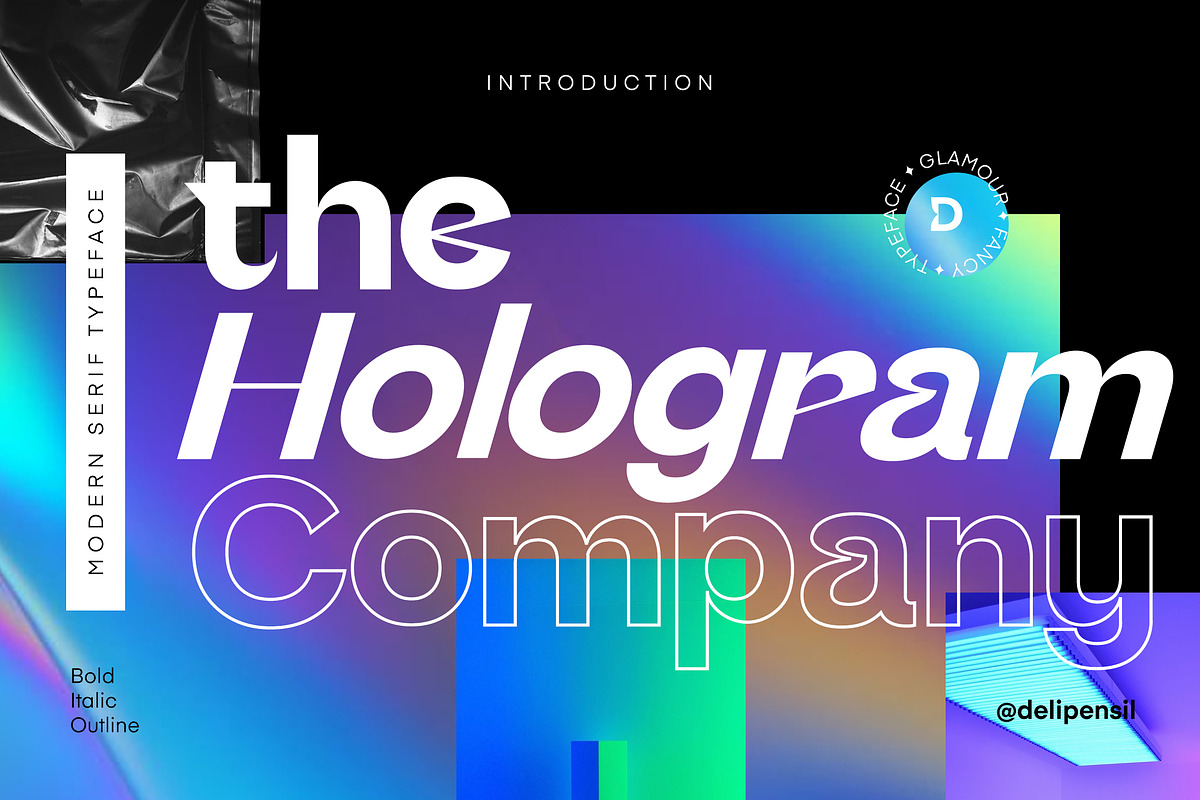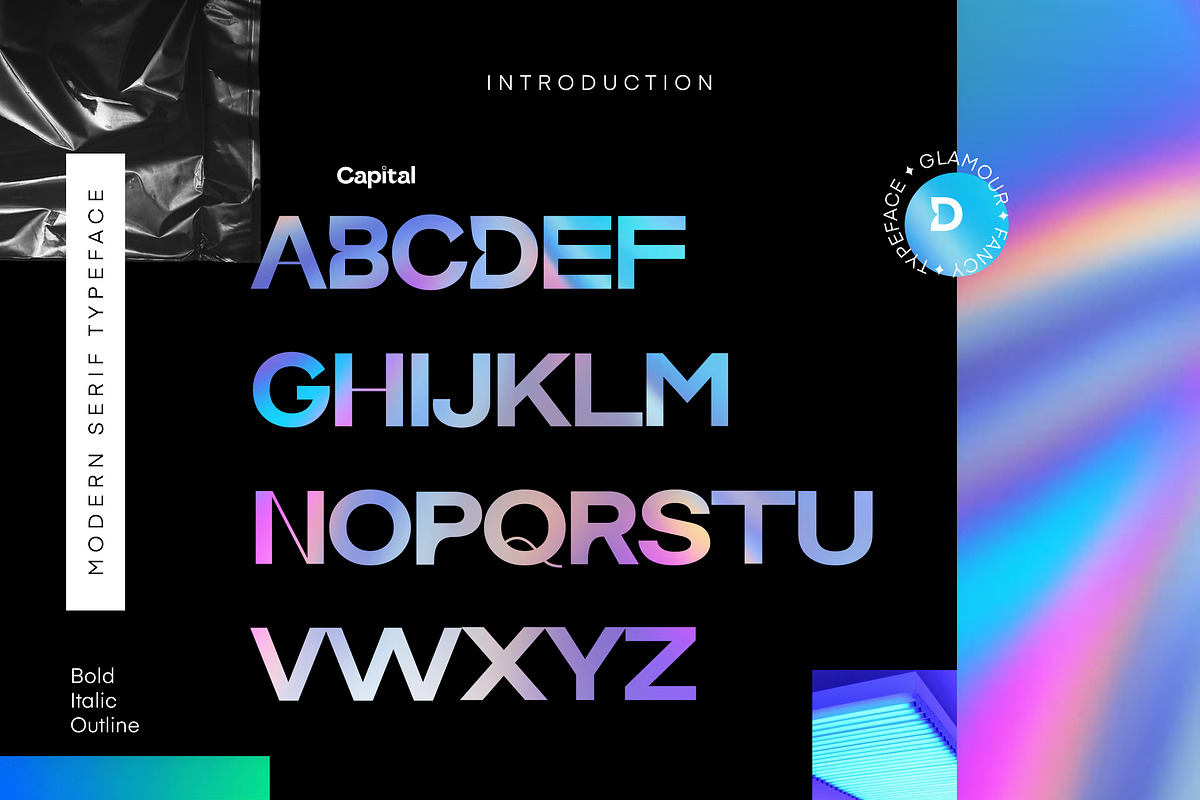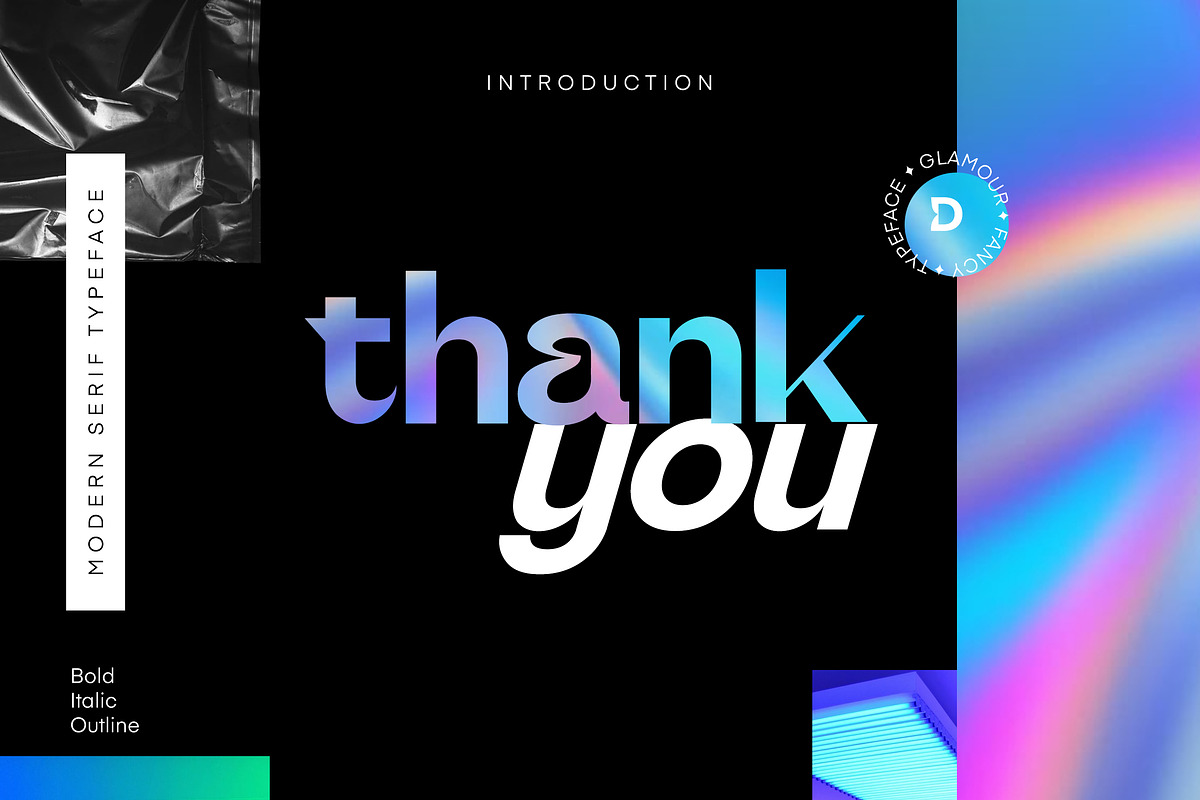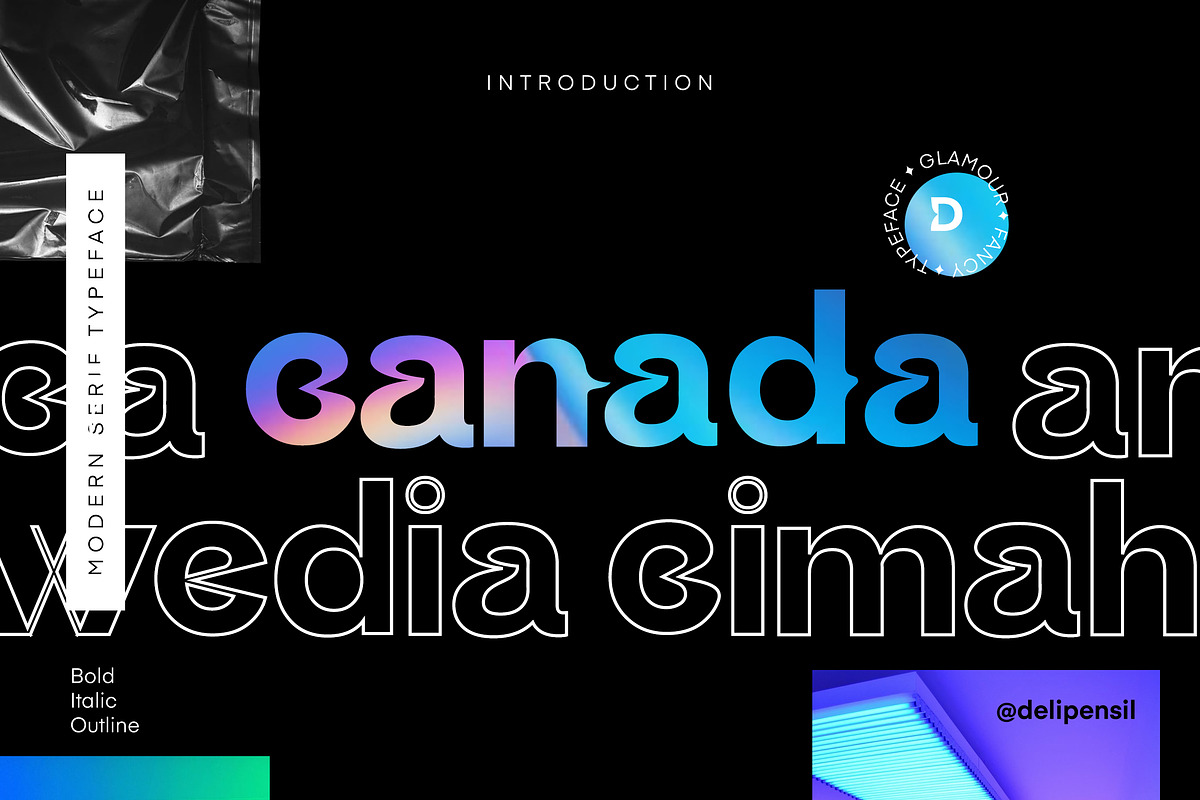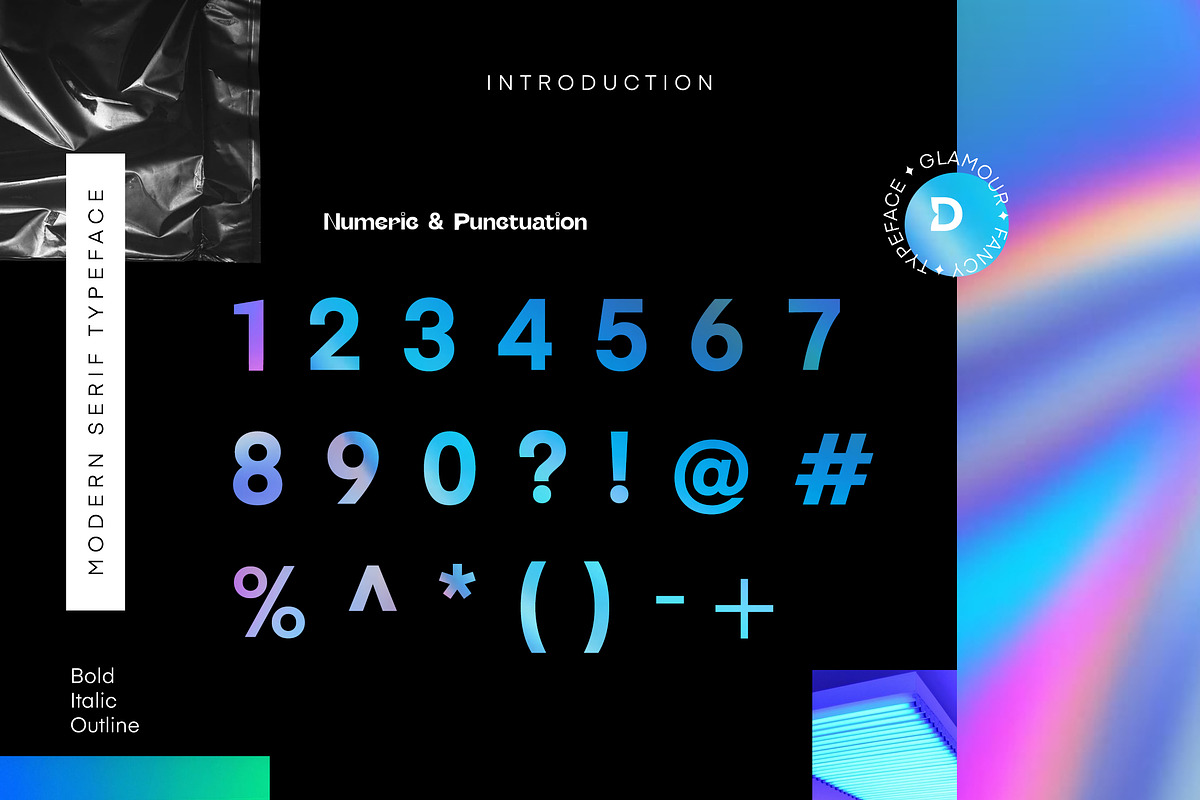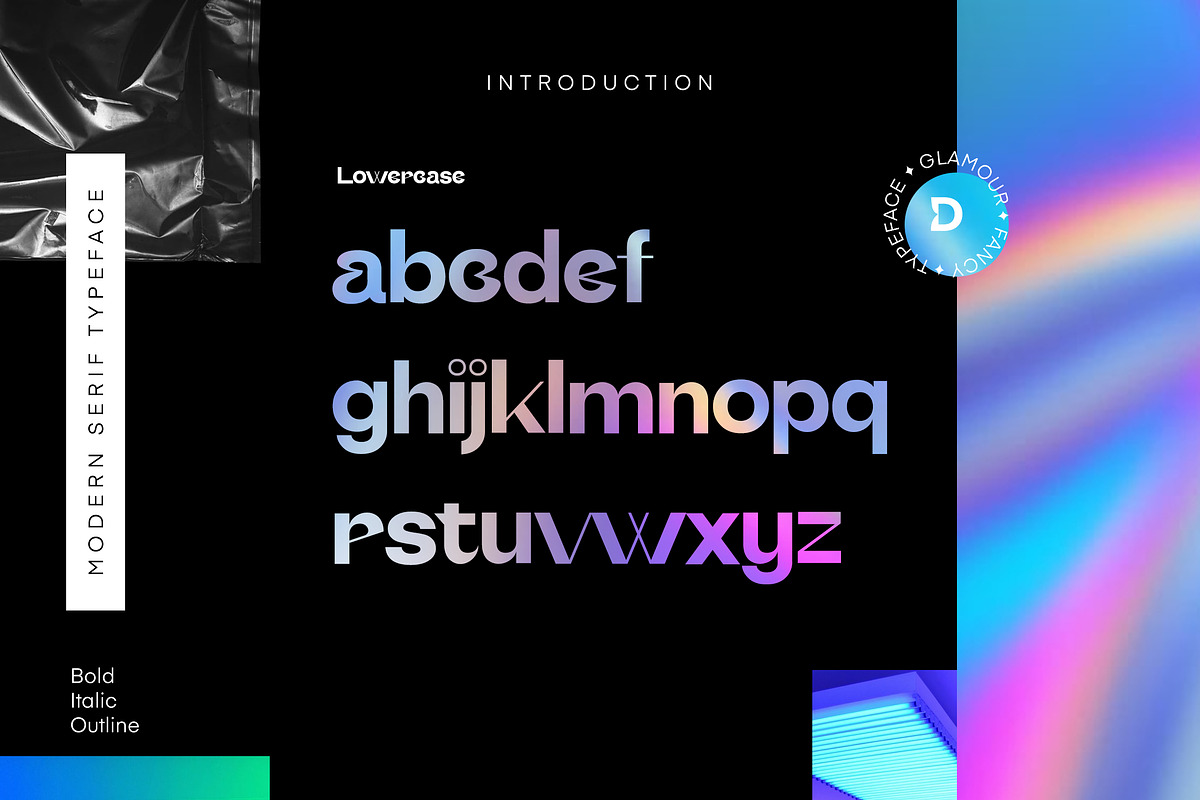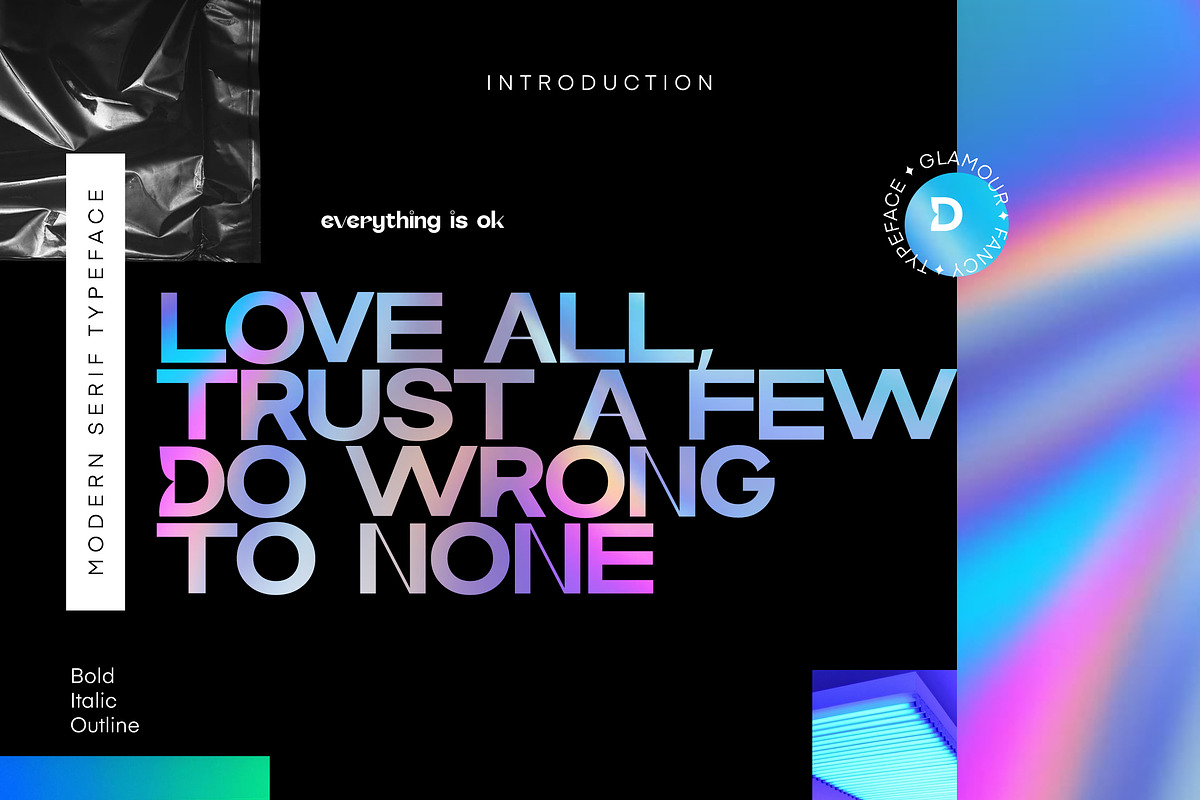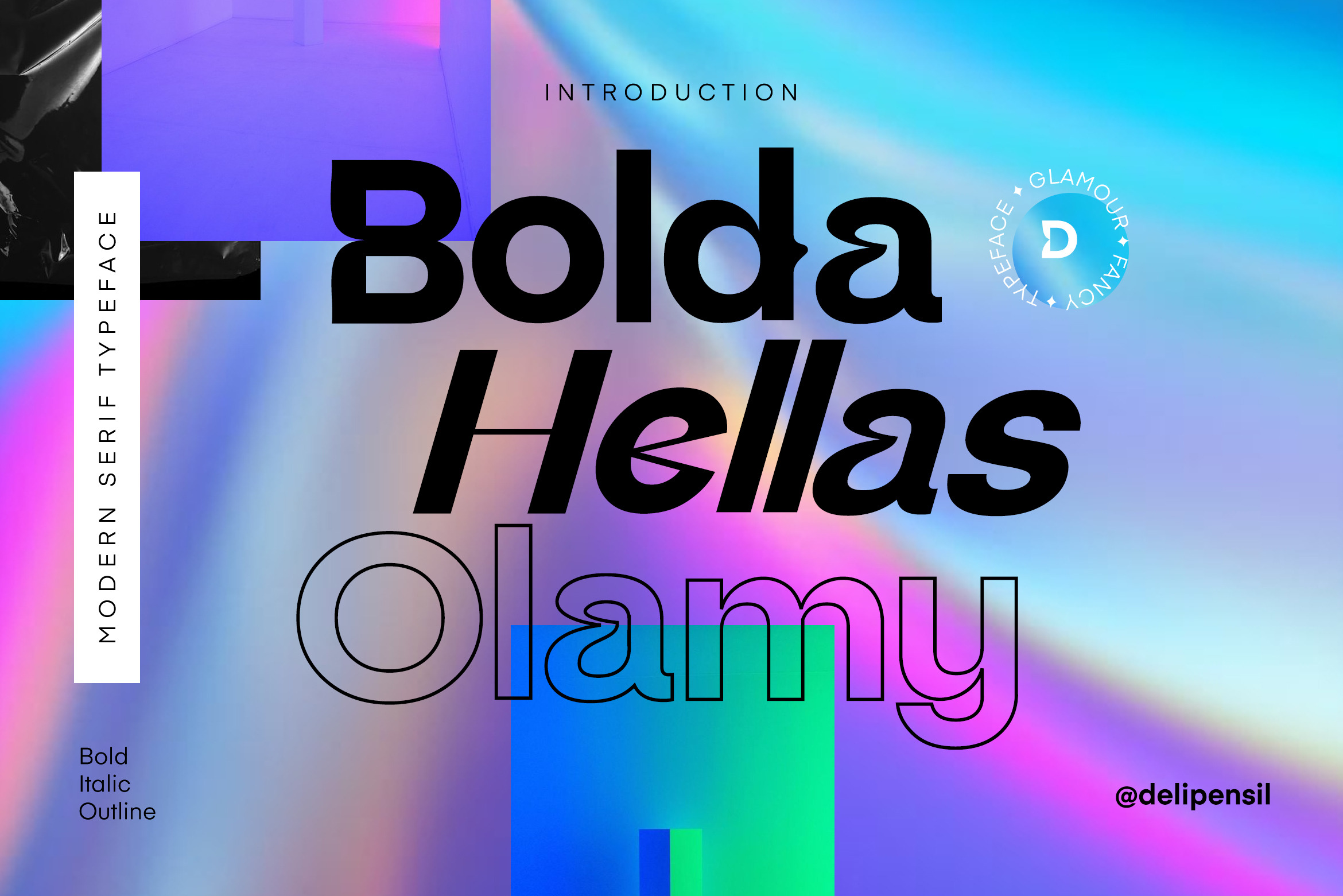
Coldag Modern Serif Font
Bismillah, Introduction Coldag - A Modern Serif Typeface 👑✨
Finally Release :D Beauty Serif font, elegant, clean and mindful , combine this font with your style, use this font for anything beauty place for your logo, headline, cover book, magazine and many more
- Coldag - 3 Font Type [Bold, Italic, Outline]
- Coldag - Kerning Style
- Coldag - Modern Feel